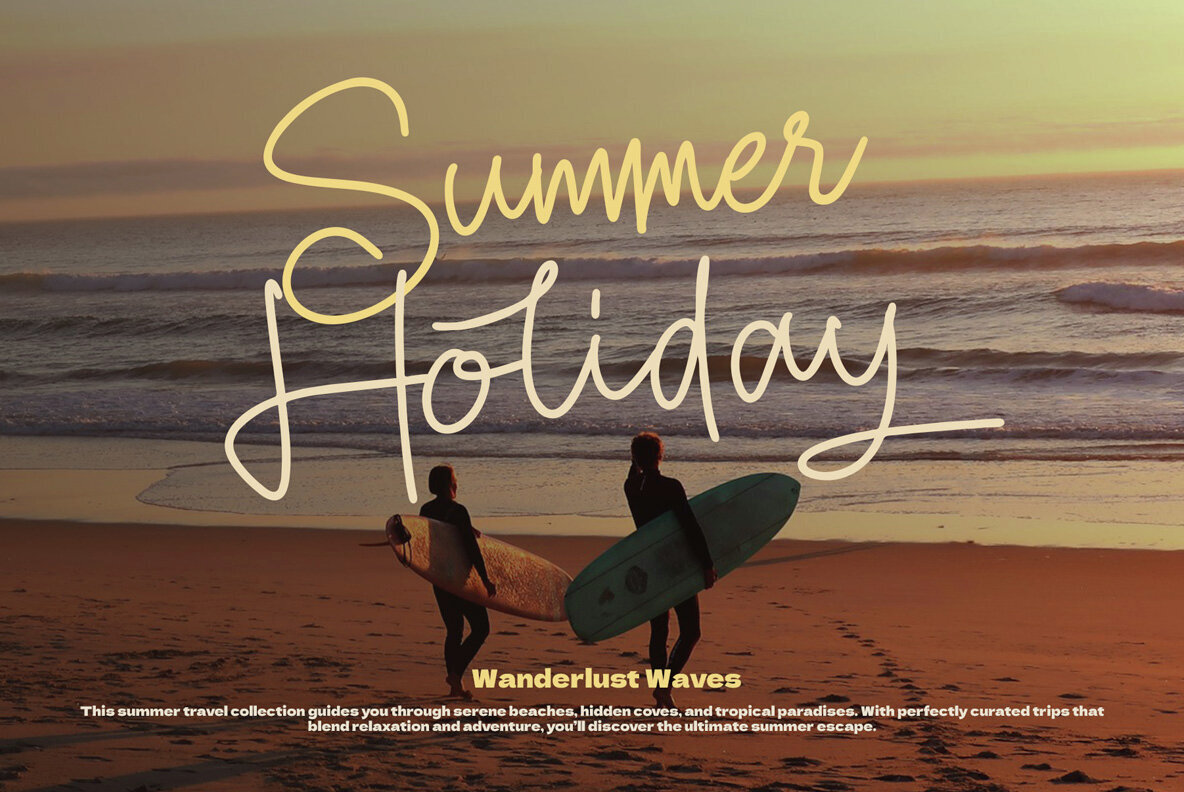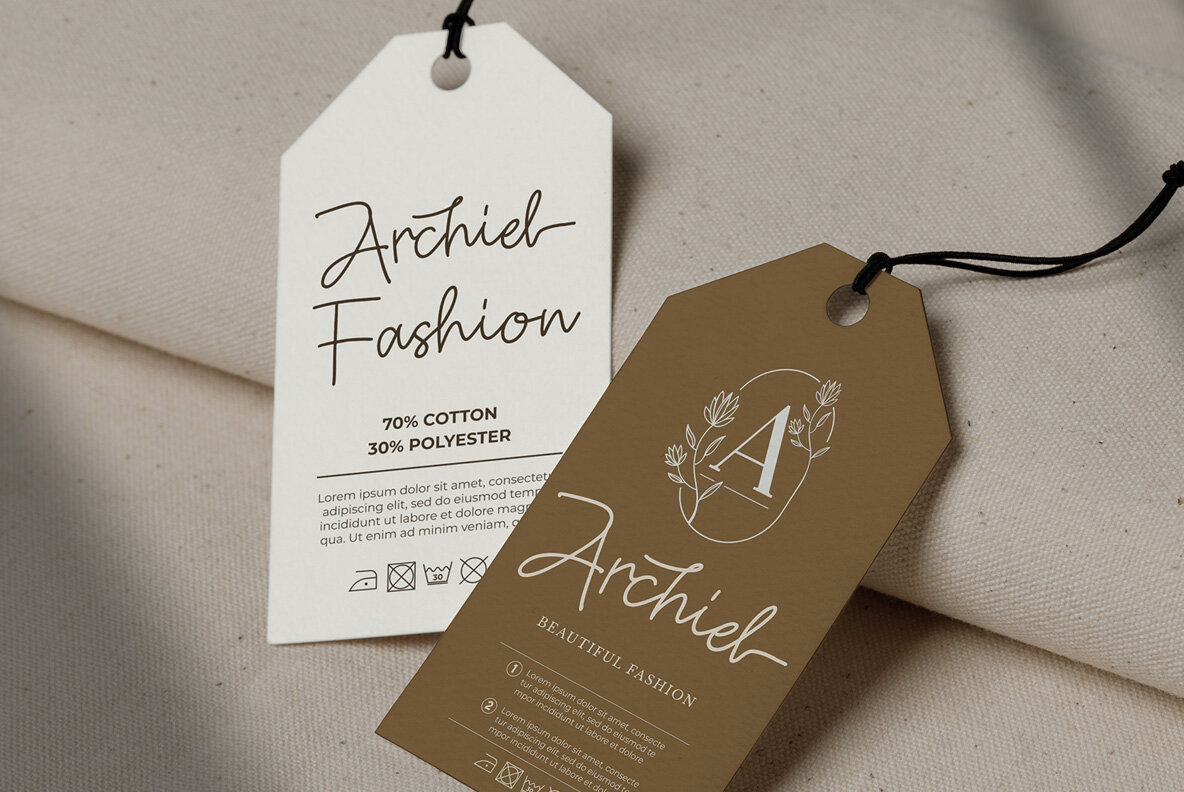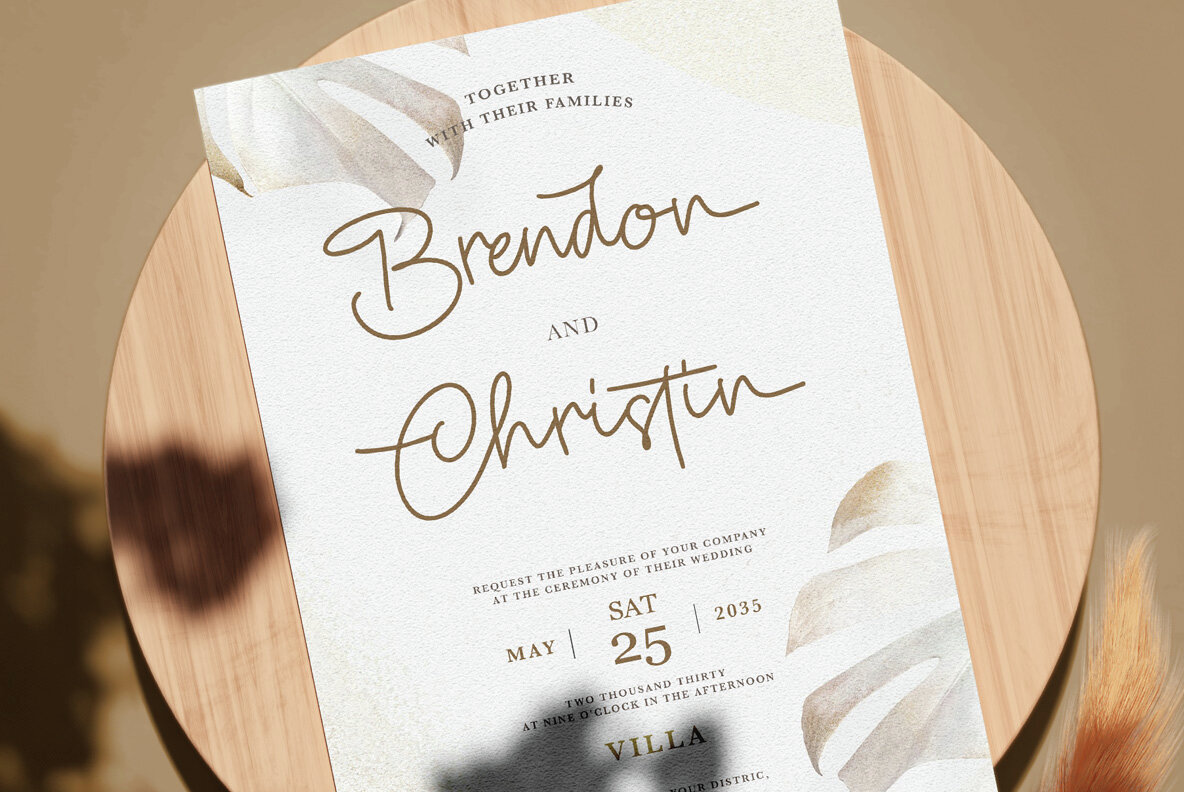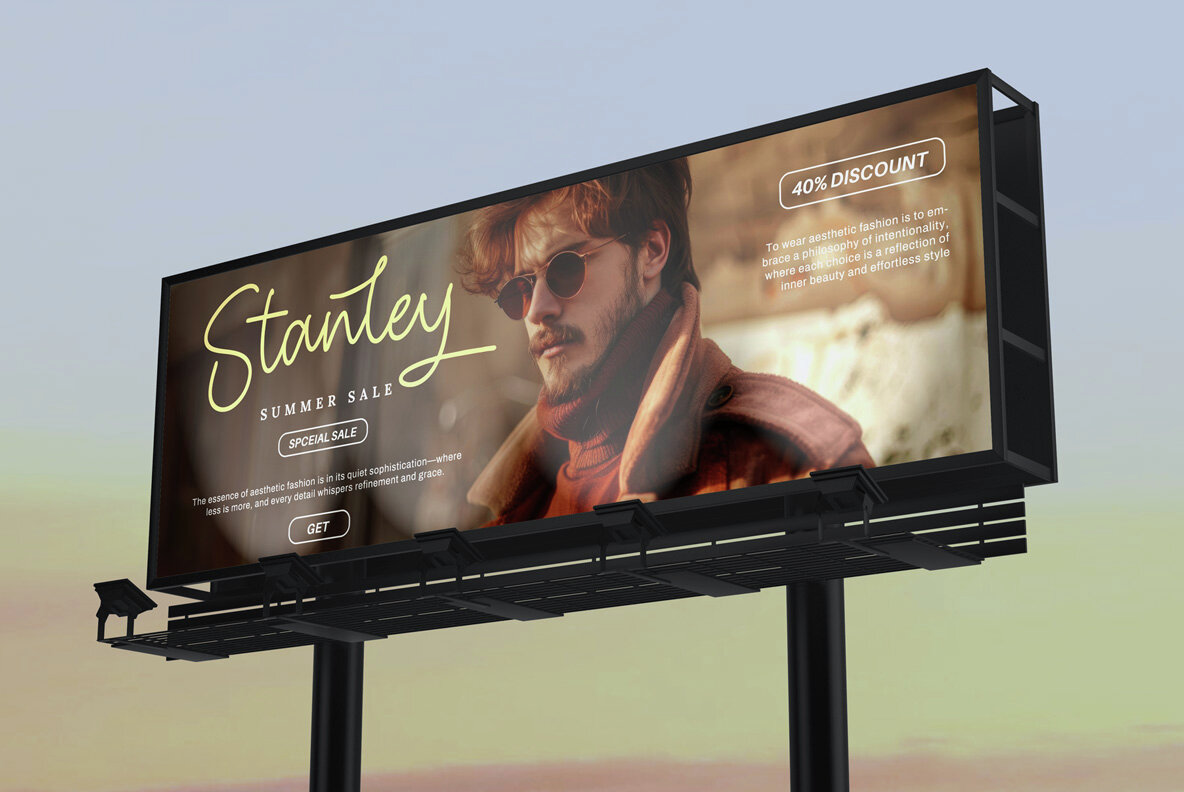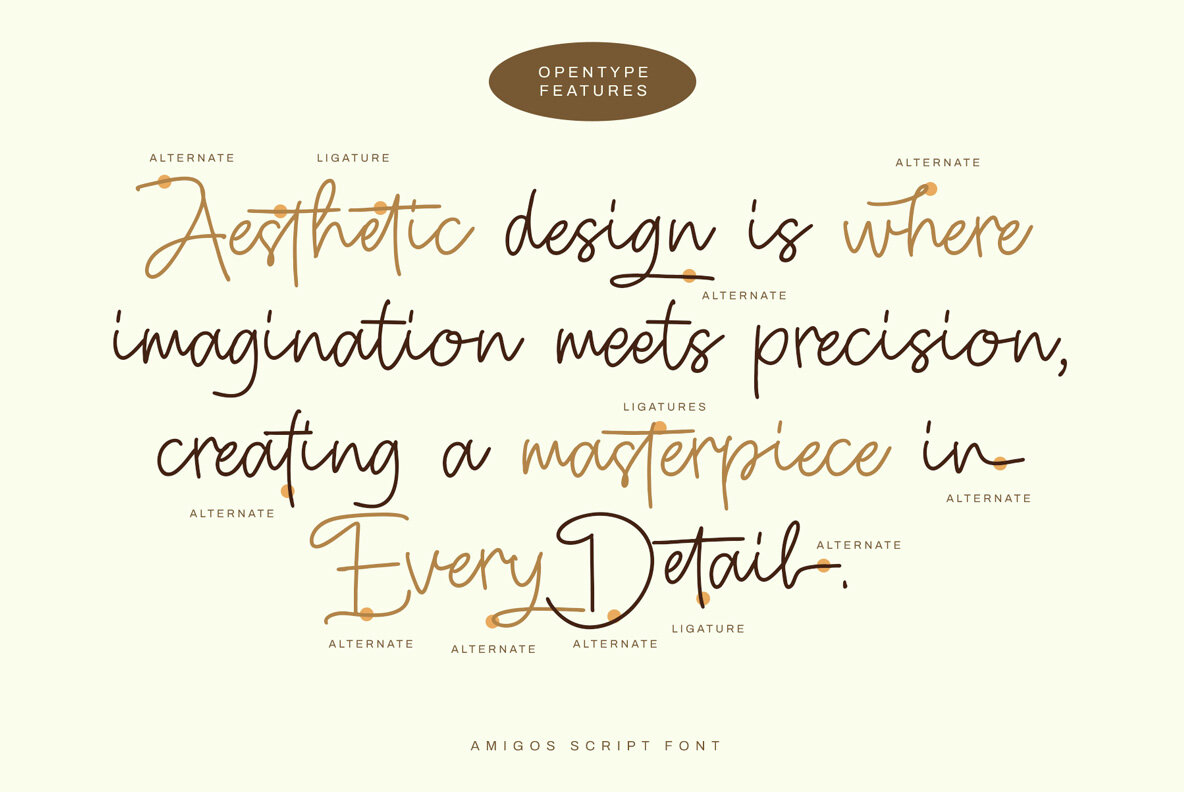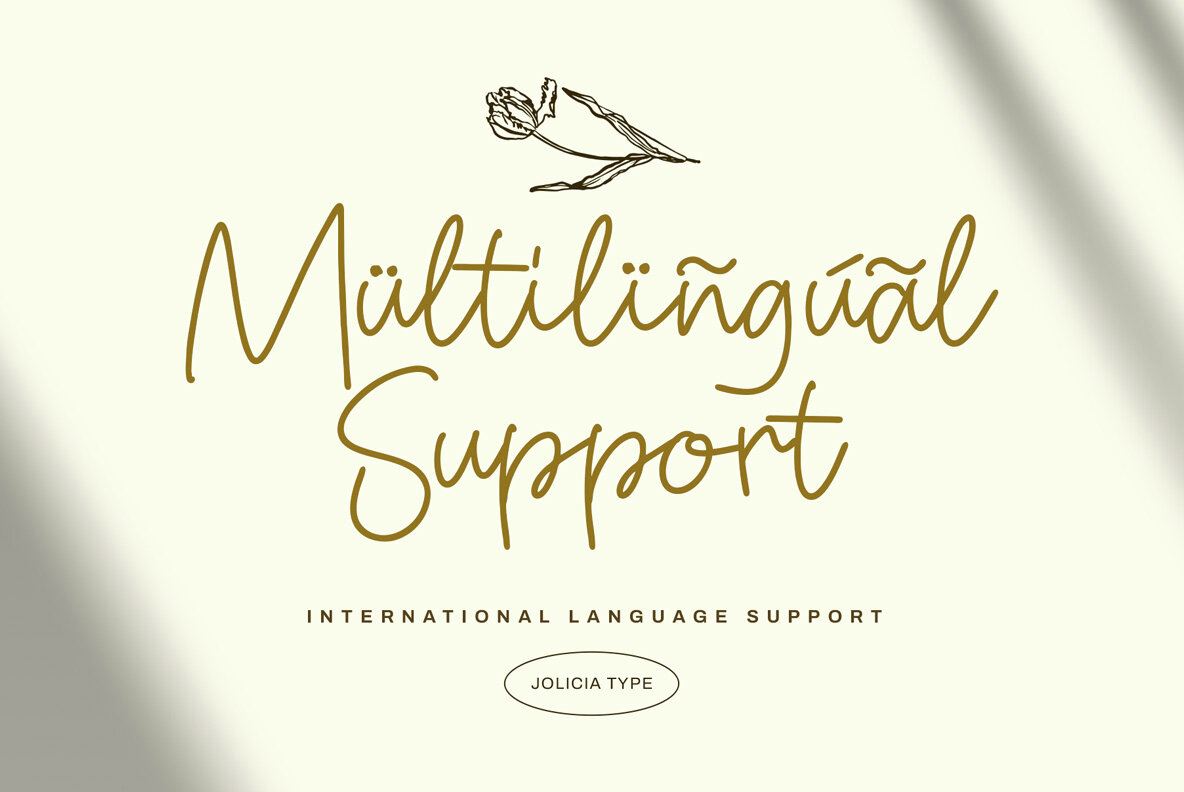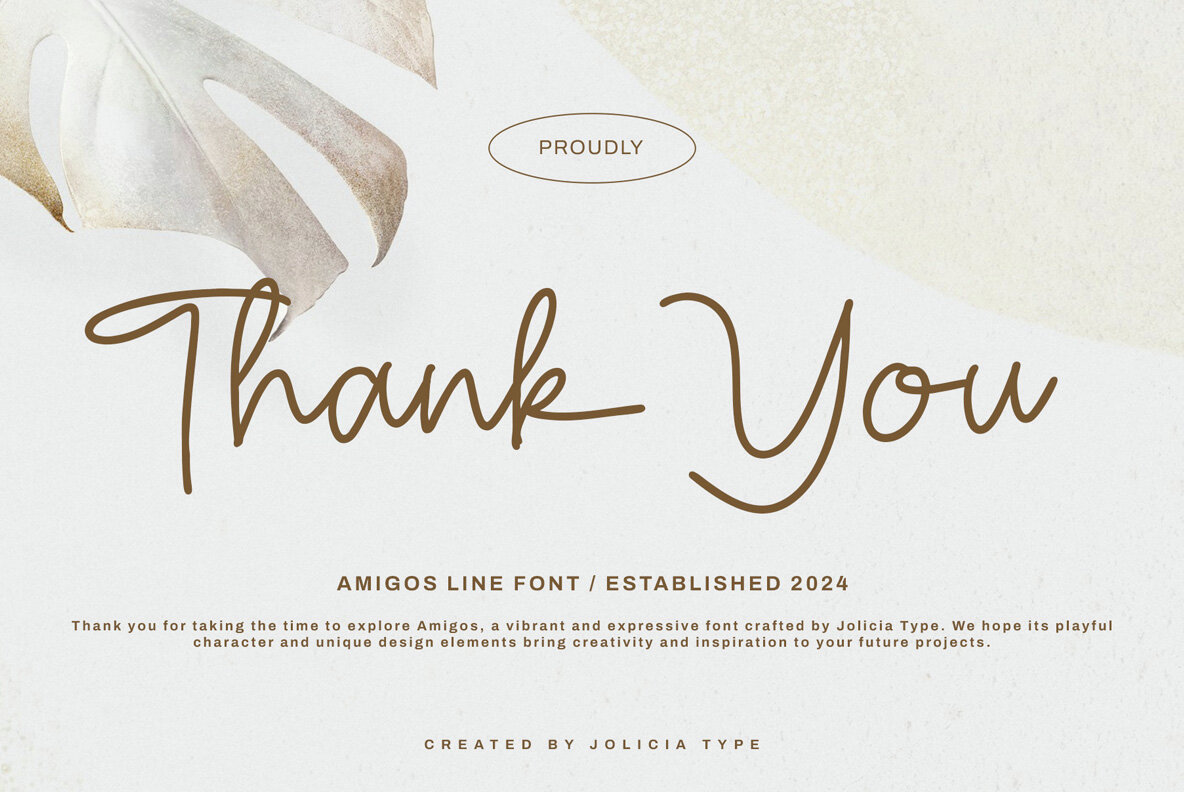
Amigos Line Font
Amigos Line
Amigos Line is a natural handwritten script font designed to add an authentic, personal touch to your creative projects. With its smooth flow and genuine hand-drawn style, this font brings warmth and friendliness to every design. Amigos Line is ideal for branding, invitations, social media graphics, and more—perfect for projects that need a unique, personable look. Enhance your designs with this versatile, elegant font and create a lasting impression that feels both genuine and stylish.